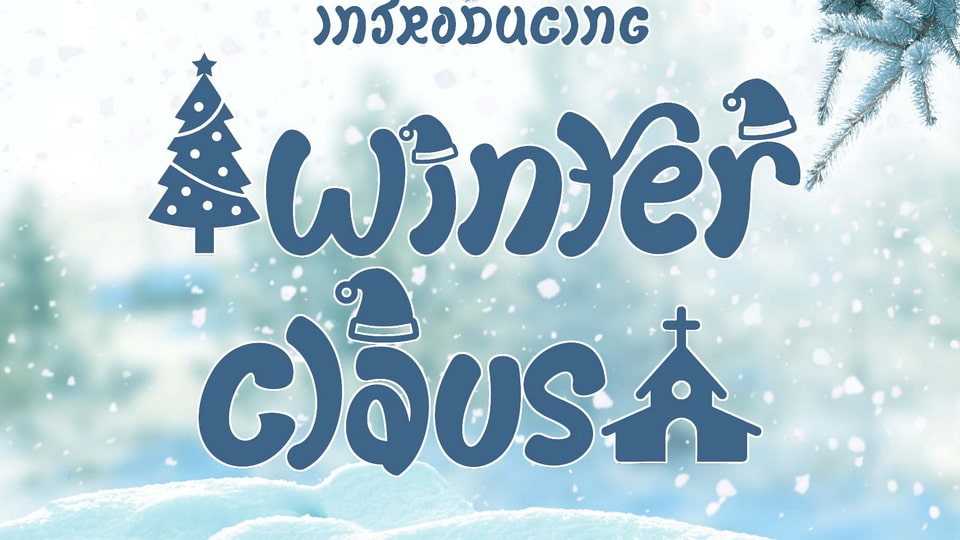
Download Winter Claus font, a unique display typeface decorated with Christmas hats, Christmas trees, and churches. This font is perfect for all your festive Christmas and winter projects.